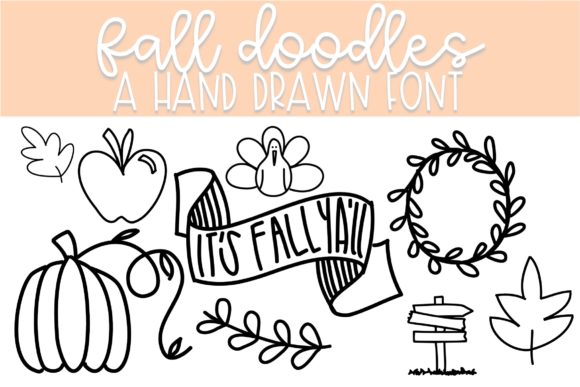
Fall Doodles Font: Elevate Your Designs with a Friendly Autumn Theme
As the seasons change and autumn arrives, designers and creatives are on the lookout for fresh inspiration and unique elements to add to their projects. One of the most effective ways to infuse your designs with the cozy, warm feeling of fall is by incorporating a seasonal font that captures the essence of the season. This is where the Fall Doodles Font comes into play – a friendly dingbats font with a fall/autumn theme that’s designed to bring your projects to the next level.
What is Fall Doodles Font?
Fall Doodles Font is a specially crafted dingbats font that embodies the spirit of autumn. With its collection of fall-themed icons, symbols, and illustrations, this font offers a creative way to add a personal touch to your designs. Whether you’re working on a project for a client or creating something for your own portfolio, Fall Doodles Font provides a versatile and fun way to incorporate seasonal elements.
Key Features of Fall Doodles Font
- Fall/Autumn Theme: The font features a wide range of fall-themed icons, including leaves, acorns, pumpkins, and more.
- Friendliness: The design of Fall Doodles Font is friendly and approachable, making it perfect for projects that aim to evoke a sense of warmth and coziness.
- Dingbats Style: As a dingbats font, Fall Doodles offers a unique set of symbols and icons that can be used to add visual interest to your designs.
- Ease of Use: The font is easy to integrate into various design projects, including digital and print materials.
- Versatility: From invitations and greeting cards to social media graphics and website headers, Fall Doodles Font can be used in a multitude of design applications.
How to Use Fall Doodles Font in Your Designs
Incorporating Fall Doodles Font into your projects is straightforward. Here are some ideas to get you started:
- Seasonal Marketing Materials: Use the font to create eye-catching seasonal marketing materials, such as flyers, posters, and social media posts, that resonate with your audience.
- Invitations and Cards: Add a personal touch to your fall-themed invitations, greeting cards, and thank-you notes with the unique icons and symbols from Fall Doodles Font.
- Web Design: Enhance your website’s autumnal theme with headers, banners, and other design elements created using Fall Doodles Font.
- DIY Projects: Whether you’re crafting autumn-themed crafts or creating personalized gifts, Fall Doodles Font can add a creative and professional touch to your DIY projects.
The Benefits of Using Fall Doodles Font
Choosing Fall Doodles Font for your design projects comes with several advantages:
- Unique Designs: Stand out from the crowd with unique and recognizable designs that capture the essence of fall.
- Time-Saving: The extensive collection of fall-themed icons and symbols saves you time and effort in finding and creating these elements from scratch.
- Consistency: Using a single font throughout your project ensures consistency and a cohesive look.
- Emotional Connection: The friendly and autumnal theme of the font helps create an emotional connection with your audience, making your designs more relatable and engaging.
Tips for Getting the Most Out of Fall Doodles Font
To maximize the potential of Fall Doodles Font, consider the following tips:
- Experiment with Sizes and Colors: Play around with different sizes and colors to find the perfect combination that suits your design.
- Mix and Match: Combine Fall Doodles Font with other fonts to create visually appealing contrasts and hierarchies in your design.
- Stay Consistent: Use Fall Doodles Font consistently across your project to maintain a cohesive and professional look.
- Explore New Ideas: Don’t be afraid to try out new and innovative ways to use the font, pushing the boundaries of traditional design.
Fall Doodles Font is more than just a font – it’s a creative tool that allows designers to infuse their projects with the warmth and charm of the autumn season. With its friendly dingbats style and extensive collection of fall-themed icons, this font is perfect for anyone looking to elevate their designs and connect with their audience on a deeper level. Whether you’re a professional designer or a DIY enthusiast, Fall Doodles Font is sure to inspire your creativity and help you create stunning designs that stand out.